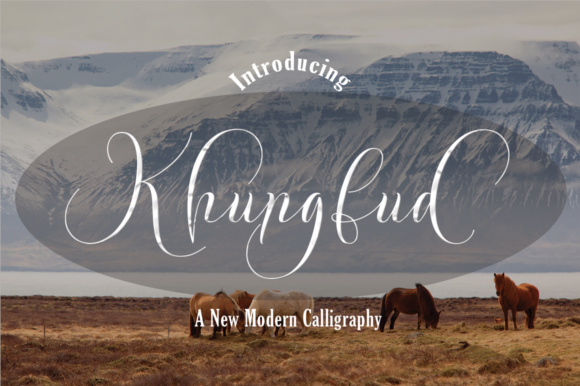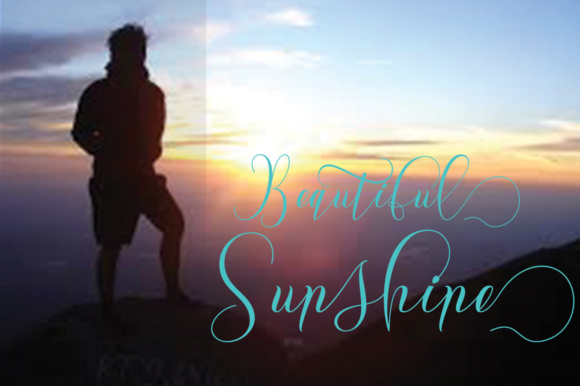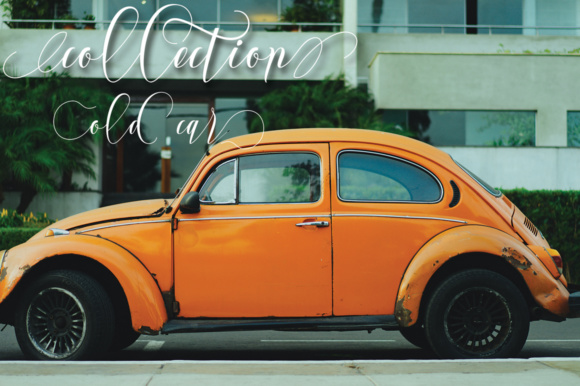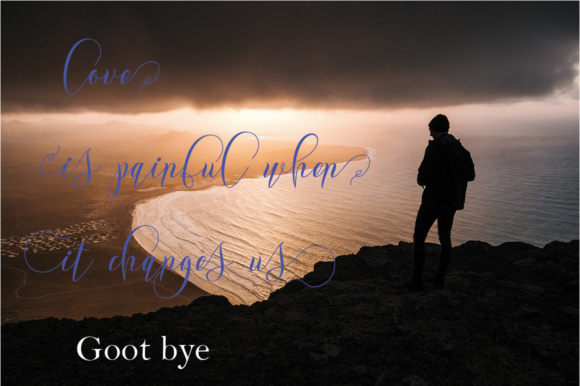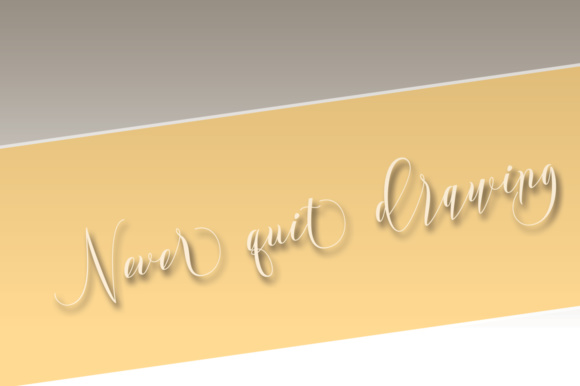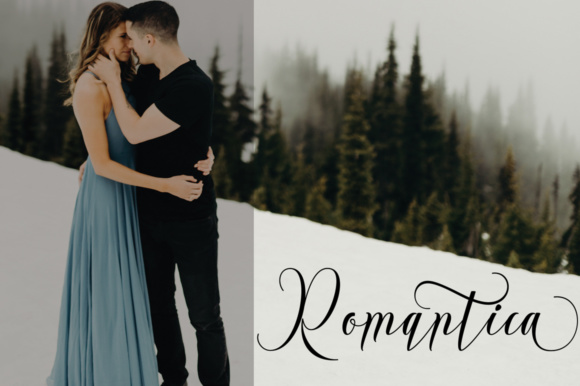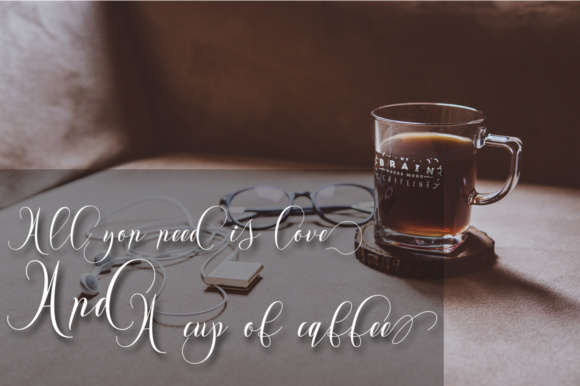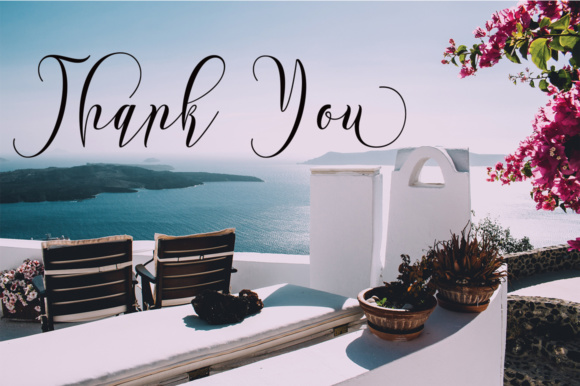
Khungfud Font
About Khungfud Font
Khungfud is a beautiful and stylish calligraphy font that has a gorgeously classic quality to it; this script font comes with stylistic alternates and will give your designs a luxurious look.